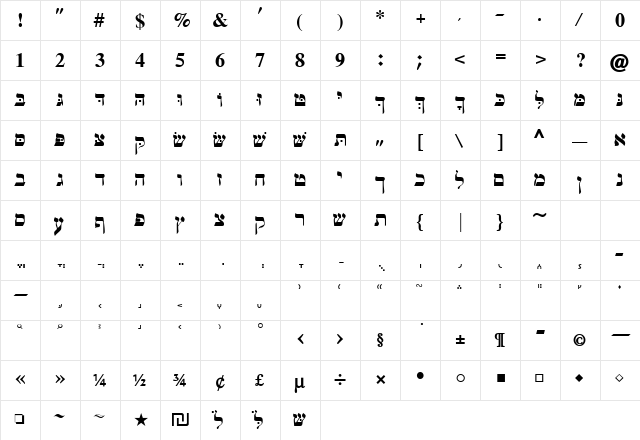
Davka Siddur Bold
Design Context for Davka Siddur Typeface
Davka Siddur is a composed and adaptable typeface that performs quietly and consistently across a wide range of design contexts. The heavy weight commands attention and anchors typographic hierarchies.